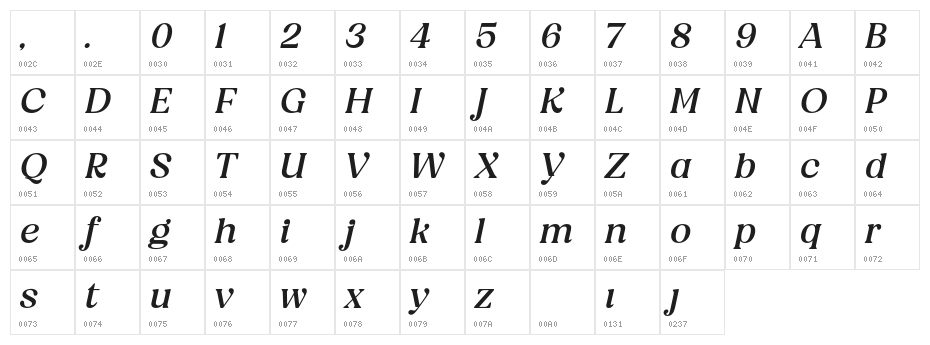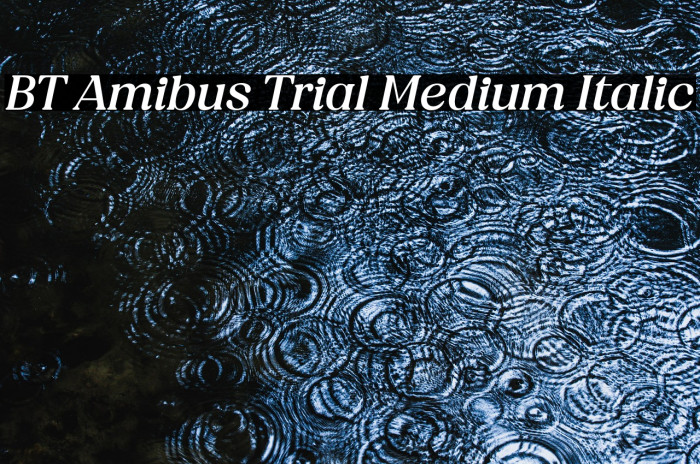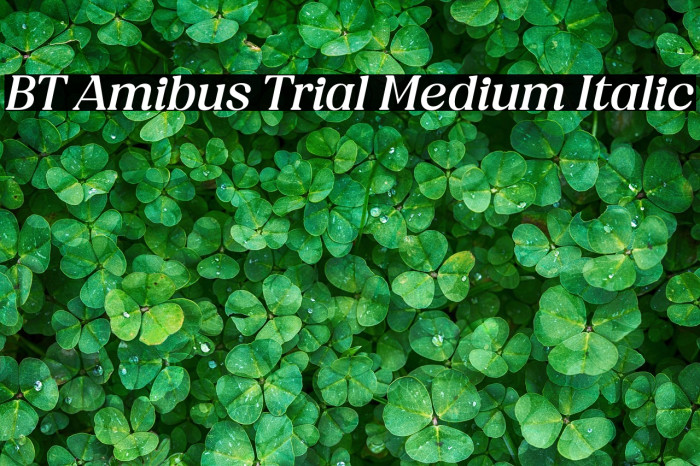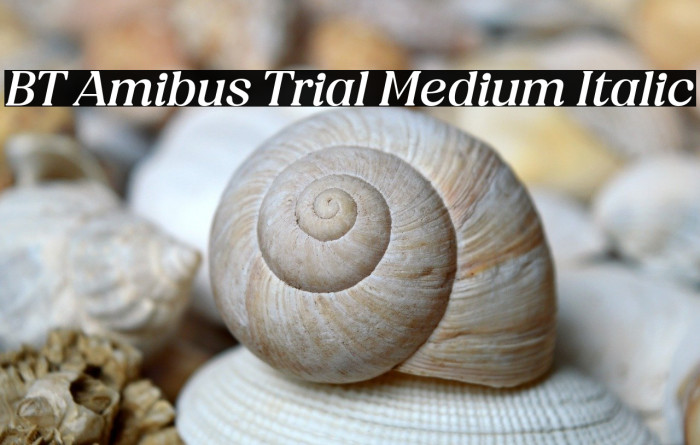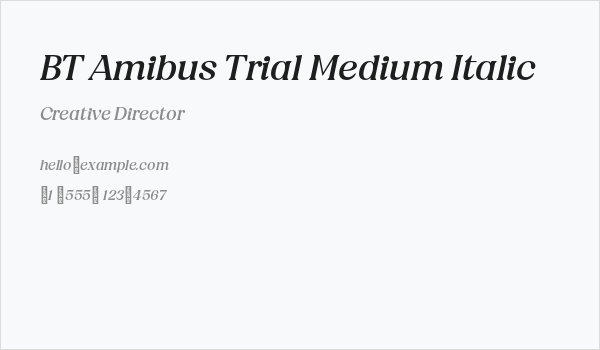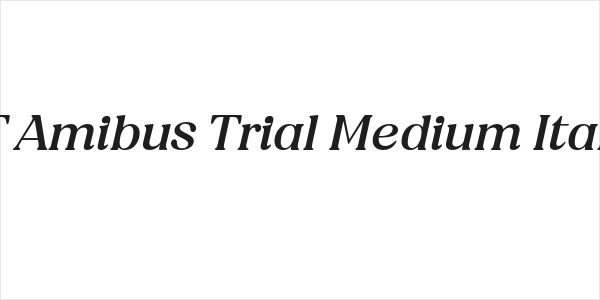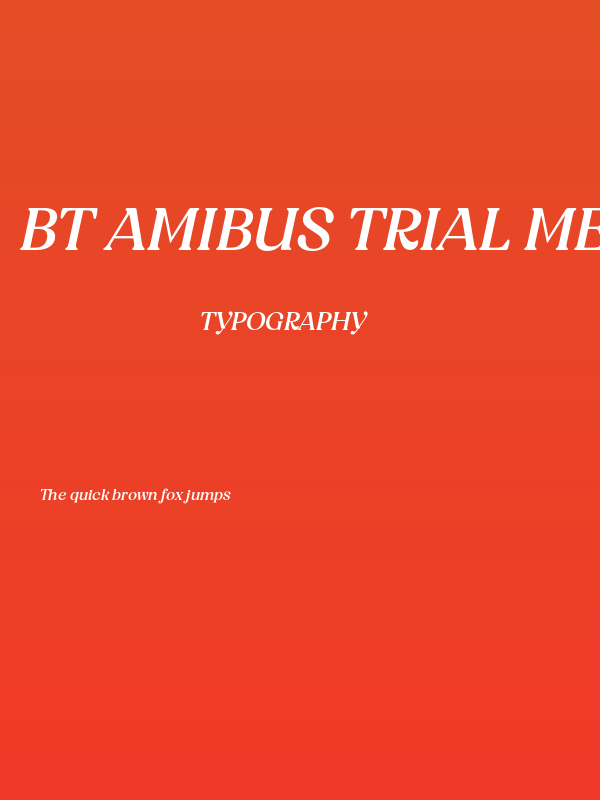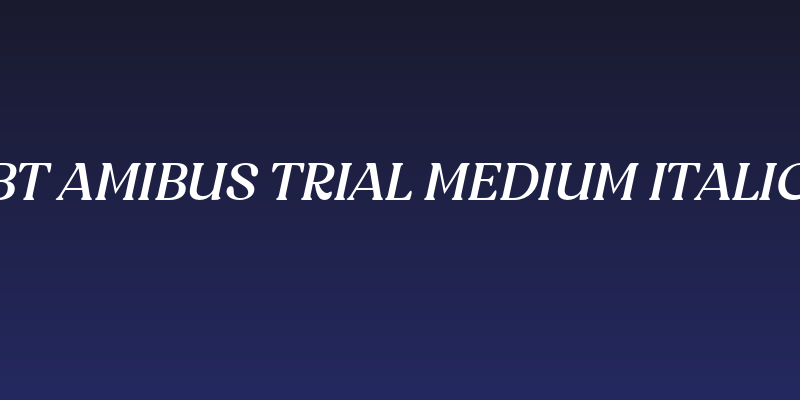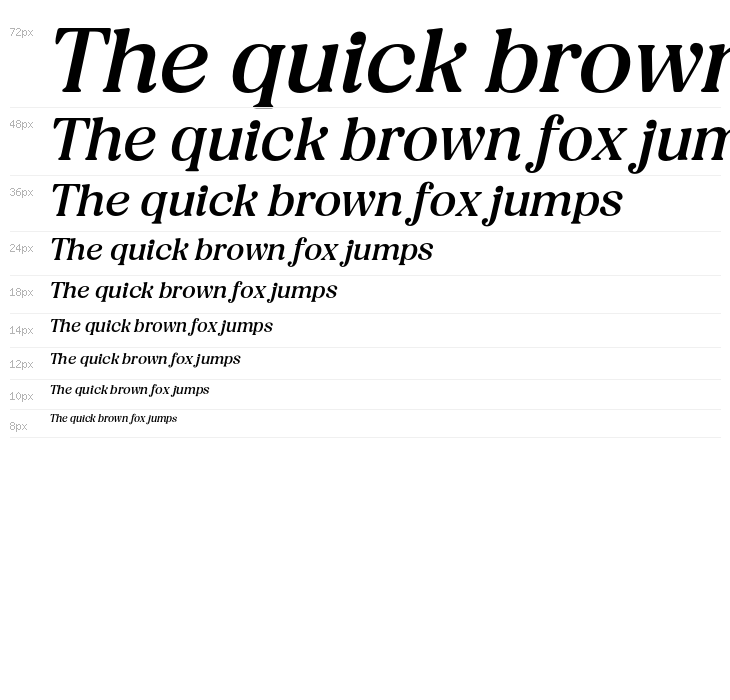
BT Amibus Trial Medium Italic Font
BT Amibus Trial Medium Italic Description
This font features a sophisticated and elegant italic style, characterized by its smooth and flowing curves. The letters have a medium weight, providing a balanced appearance that is neither too light nor too bold. The serifs are subtle yet distinct, adding a touch of classic refinement. The character spacing is normal, ensuring readability while maintaining a stylish look. The numbers and special characters are designed to complement the alphabet, maintaining the overall aesthetic. This font's contrast is medium, with a consistent stroke thickness that enhances its legibility.